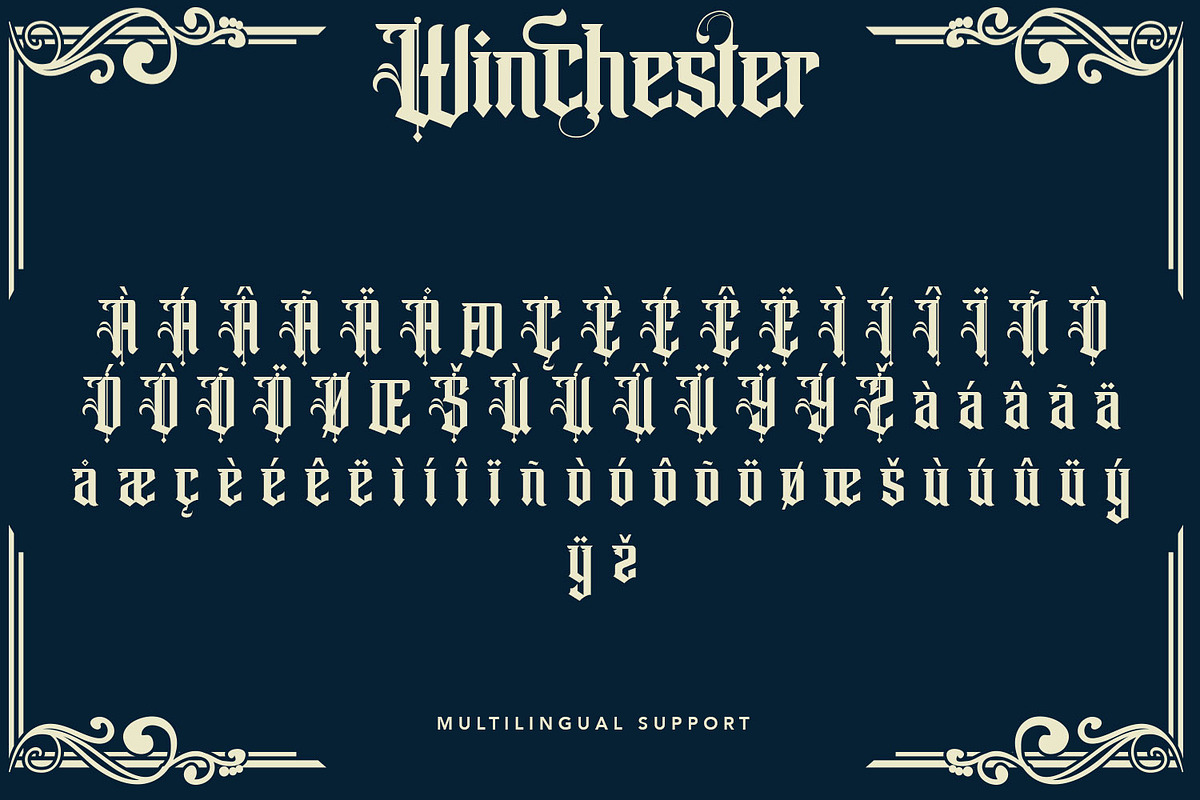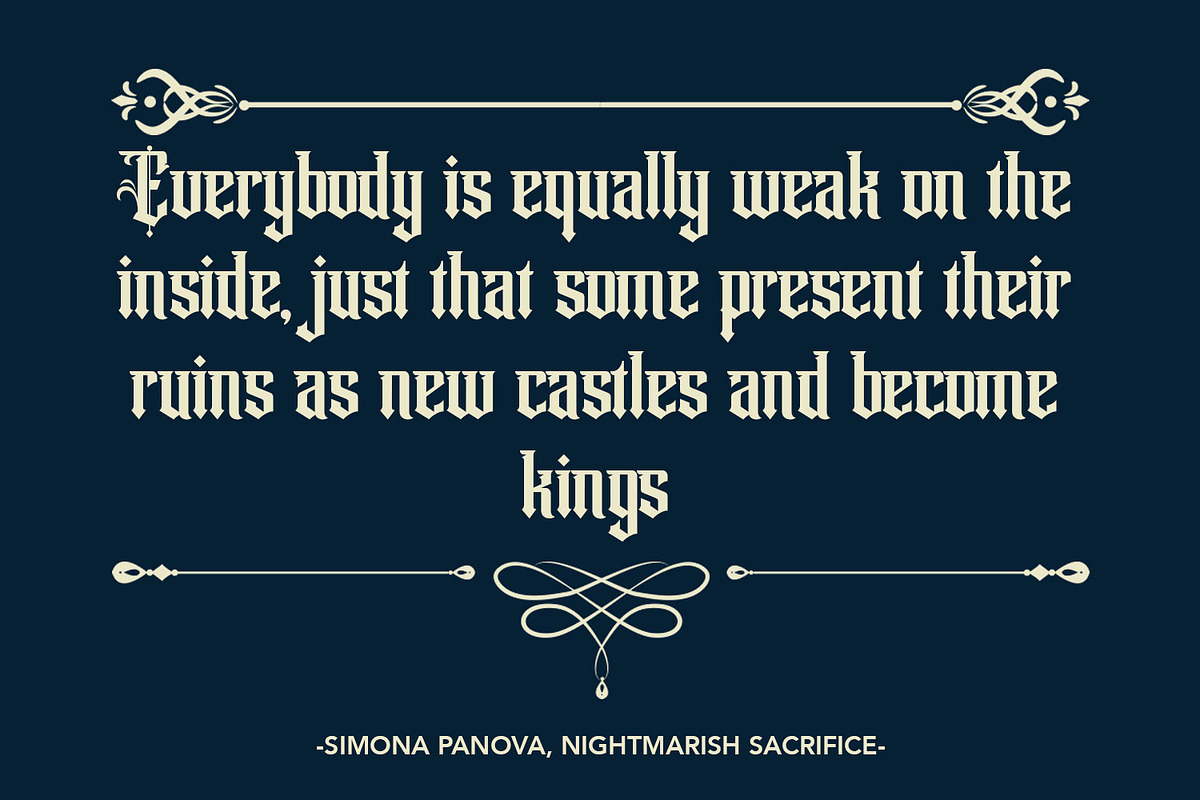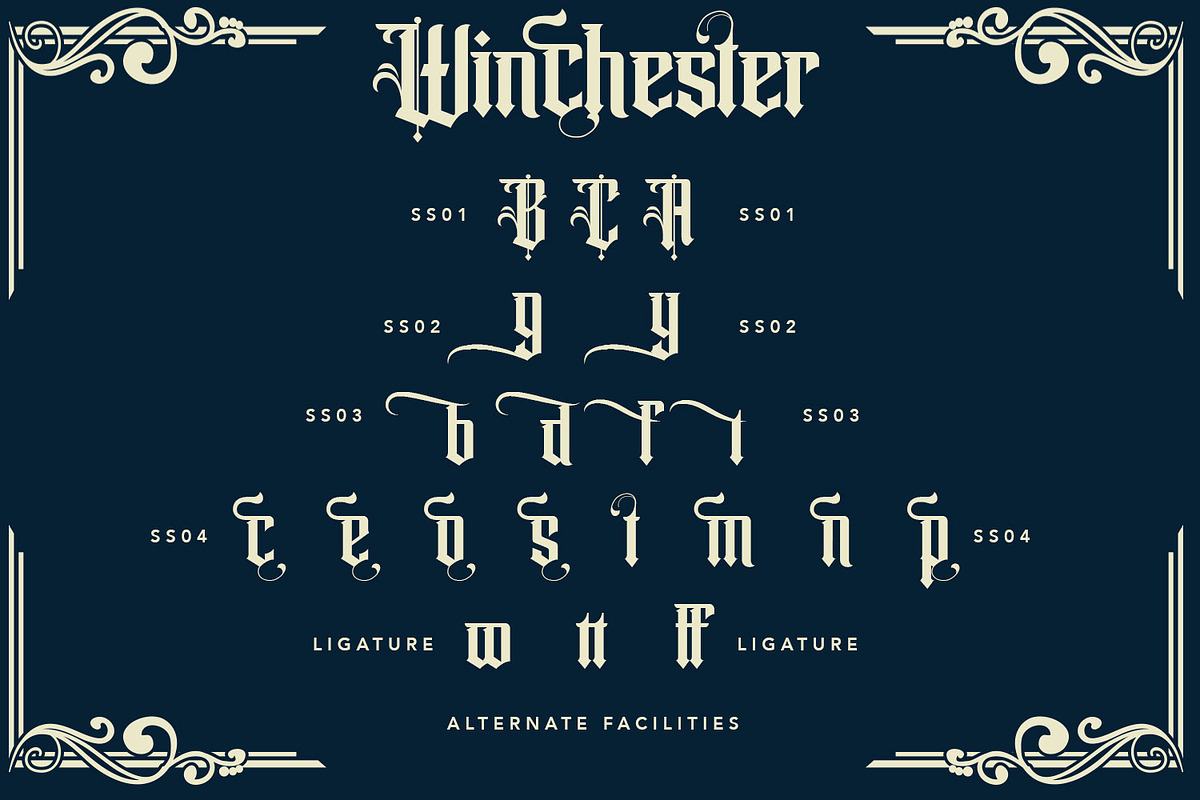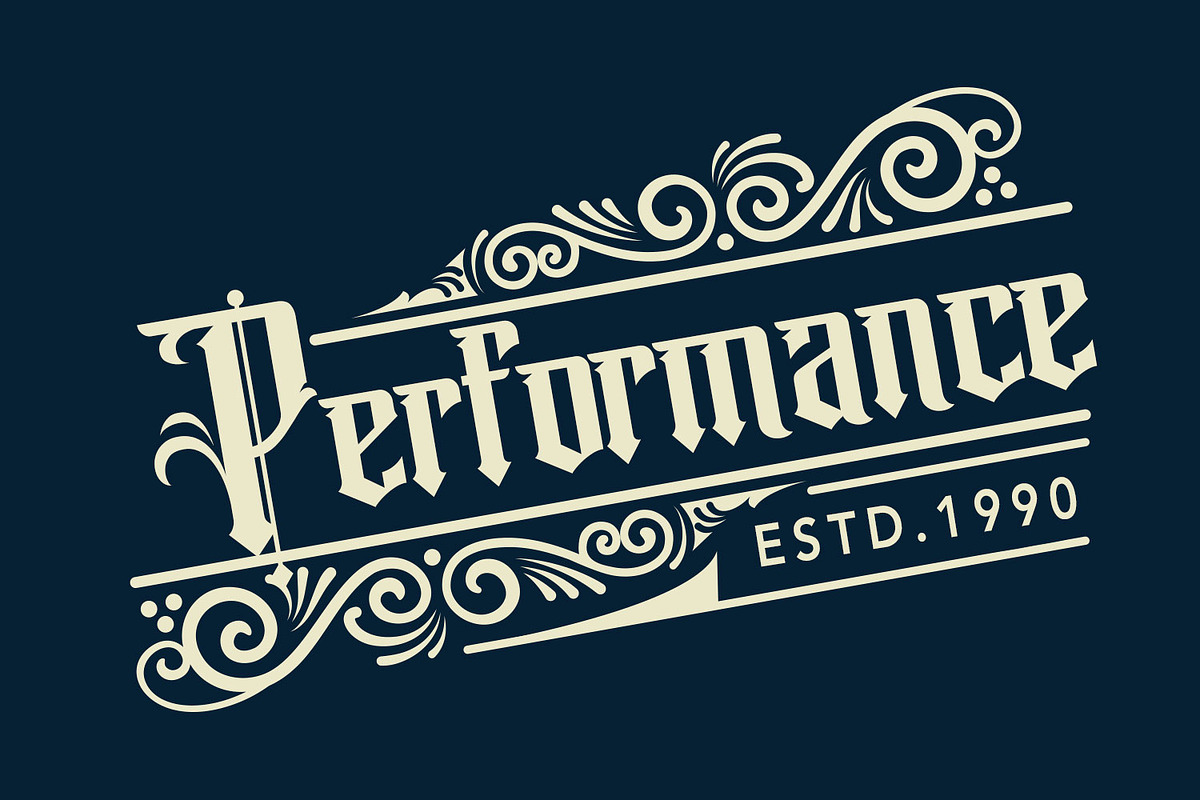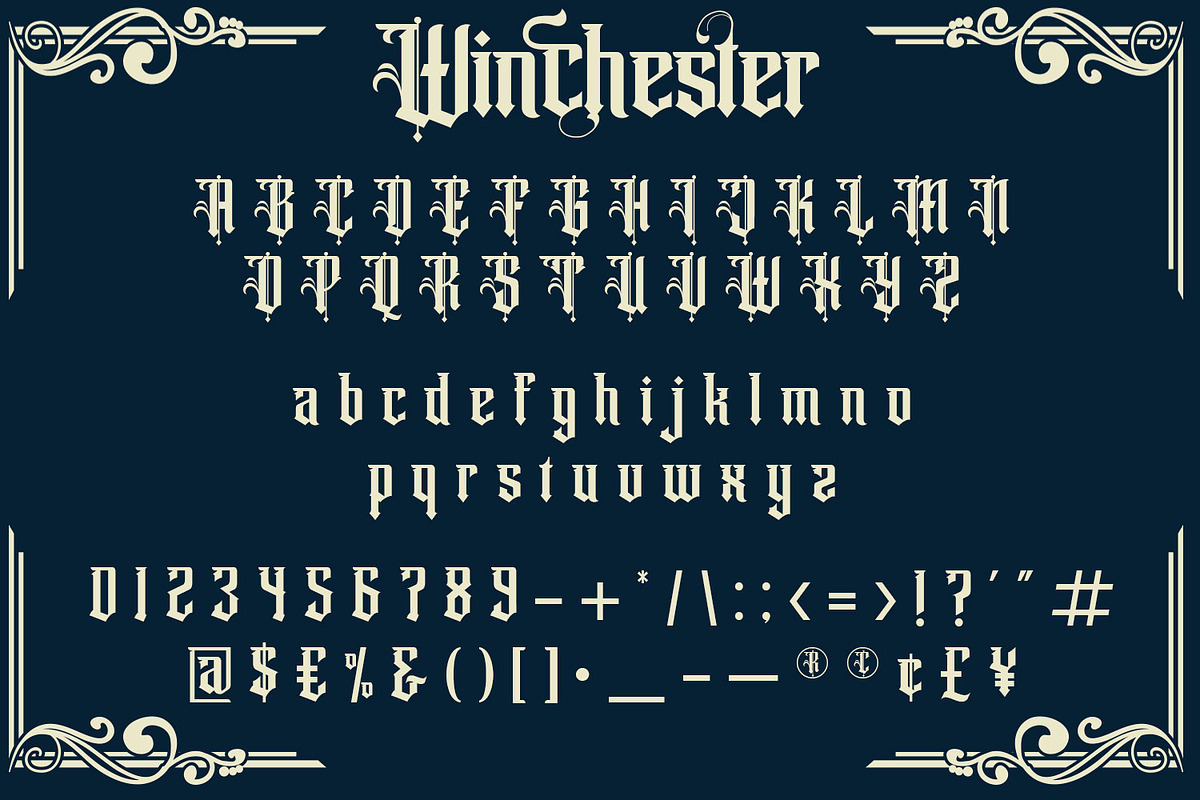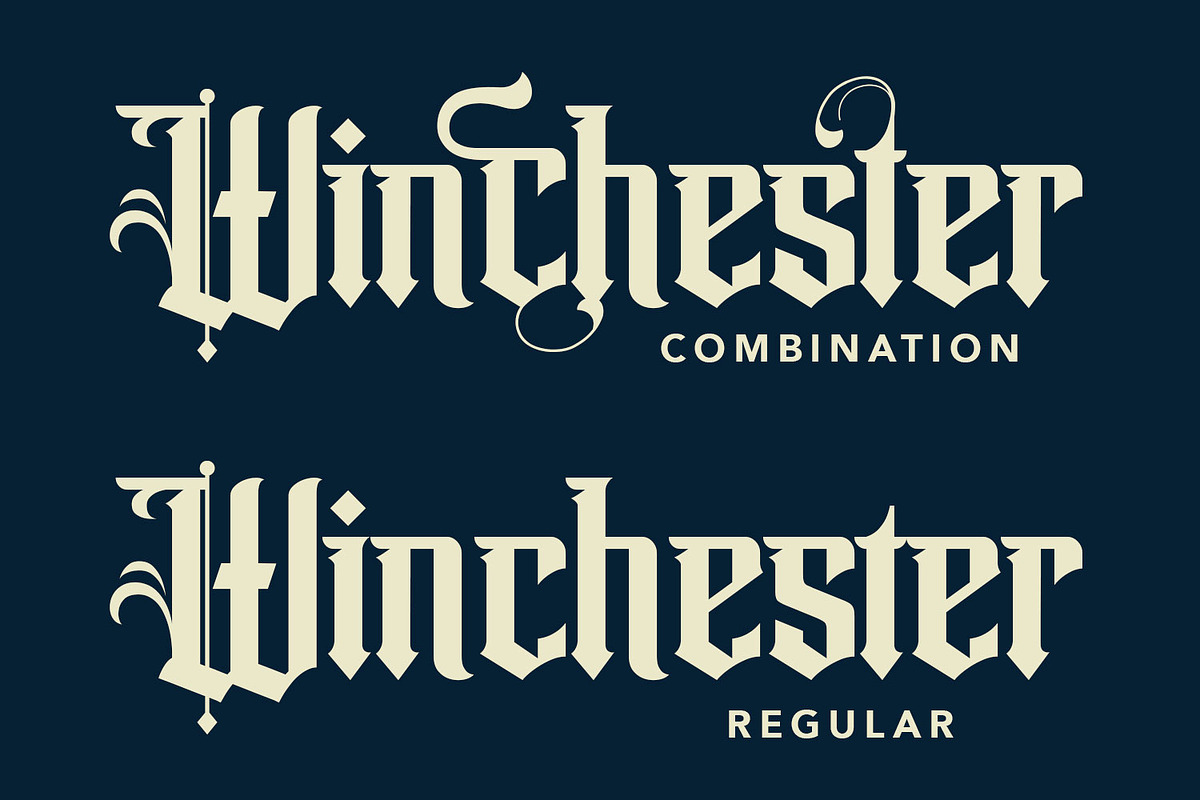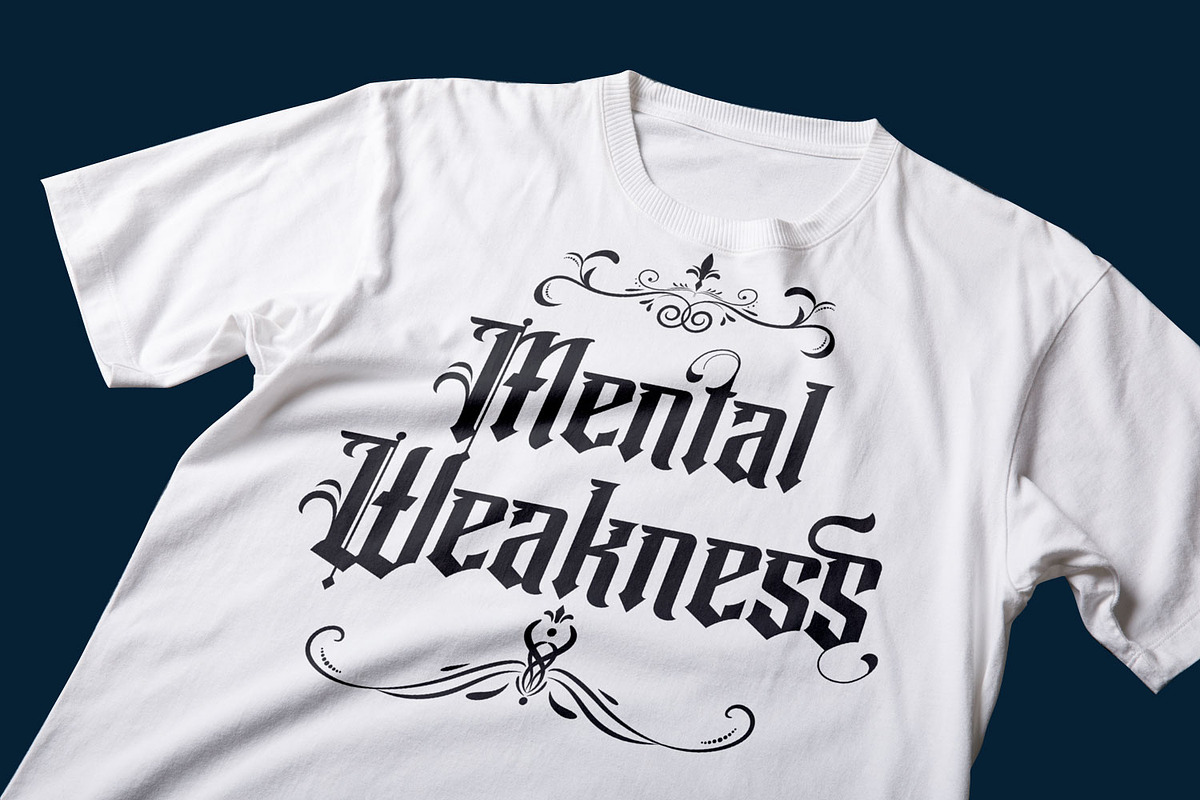
Winchester Blackletter Font
Introducing Winchester Blackletter Vintage
Winchester Blackletter Vintage is a handmade Modern Victorian handlettering, which is combining modern and classic typography with some awesome alternates. Yes we back to early 1800s, bring classic touch on this decade.